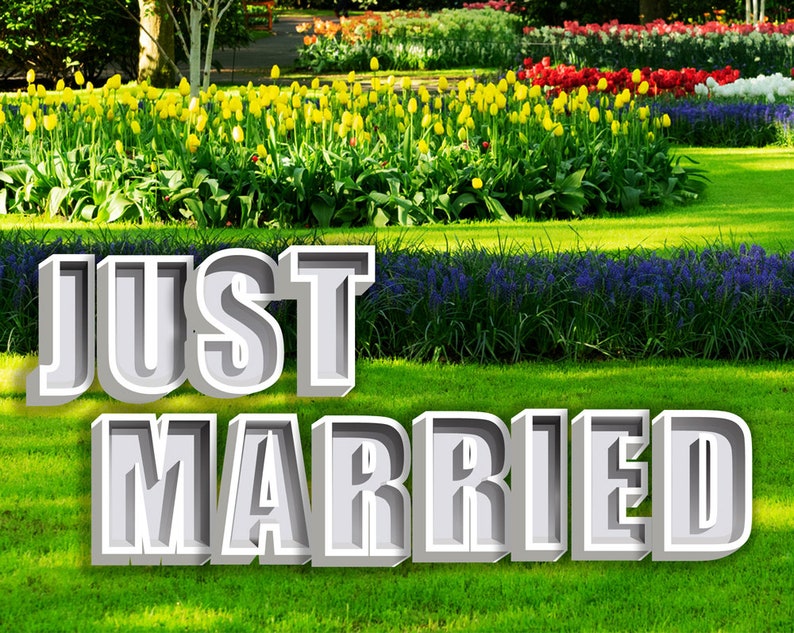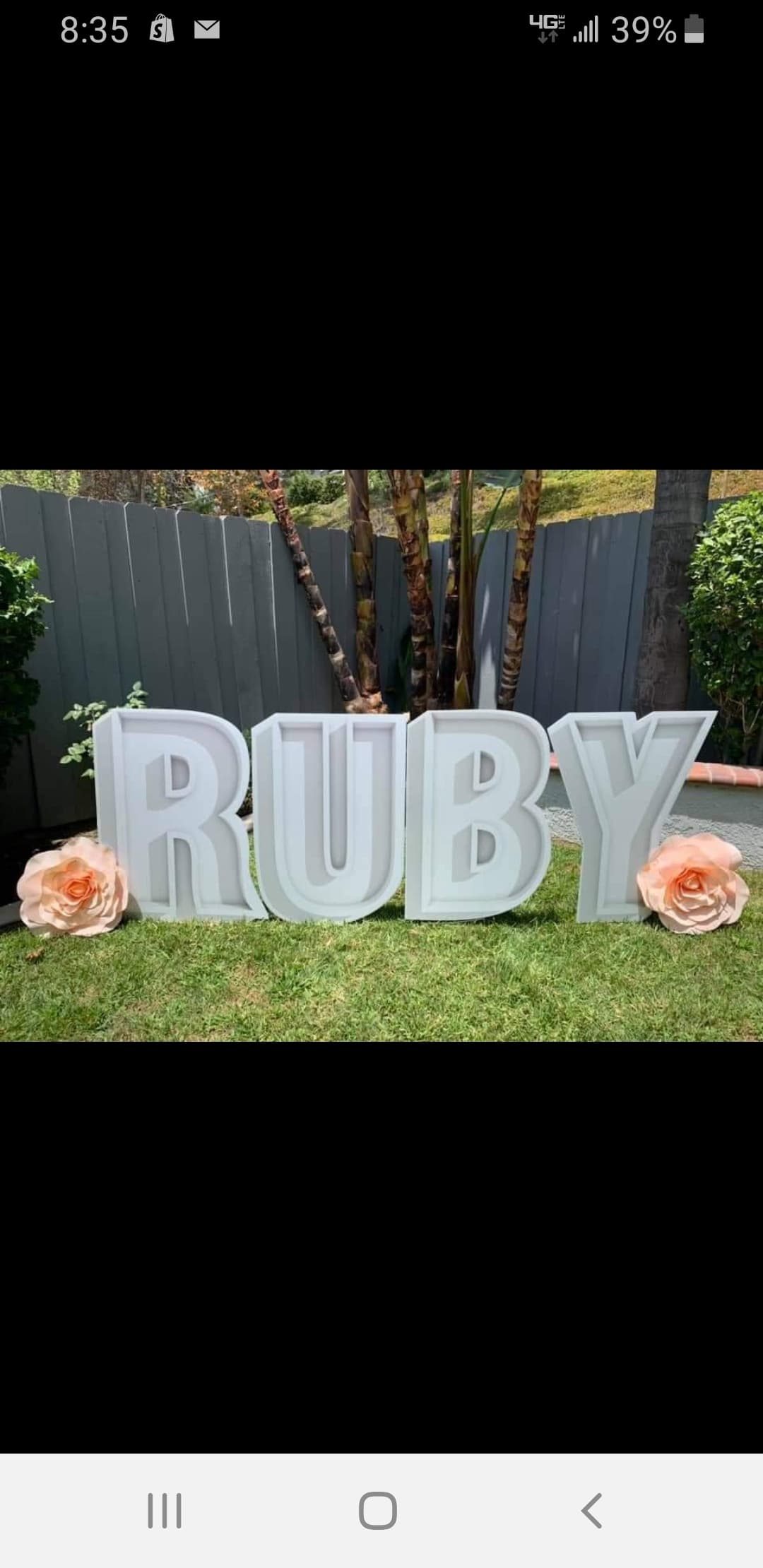
I need help with this font please…anyone know what its called or best way to create it??
The font is very similar to Helvetica Condense [not Narrow] Black or Inserat. Note the curved leg of the R. Outlined and extruded into a 3-D form.